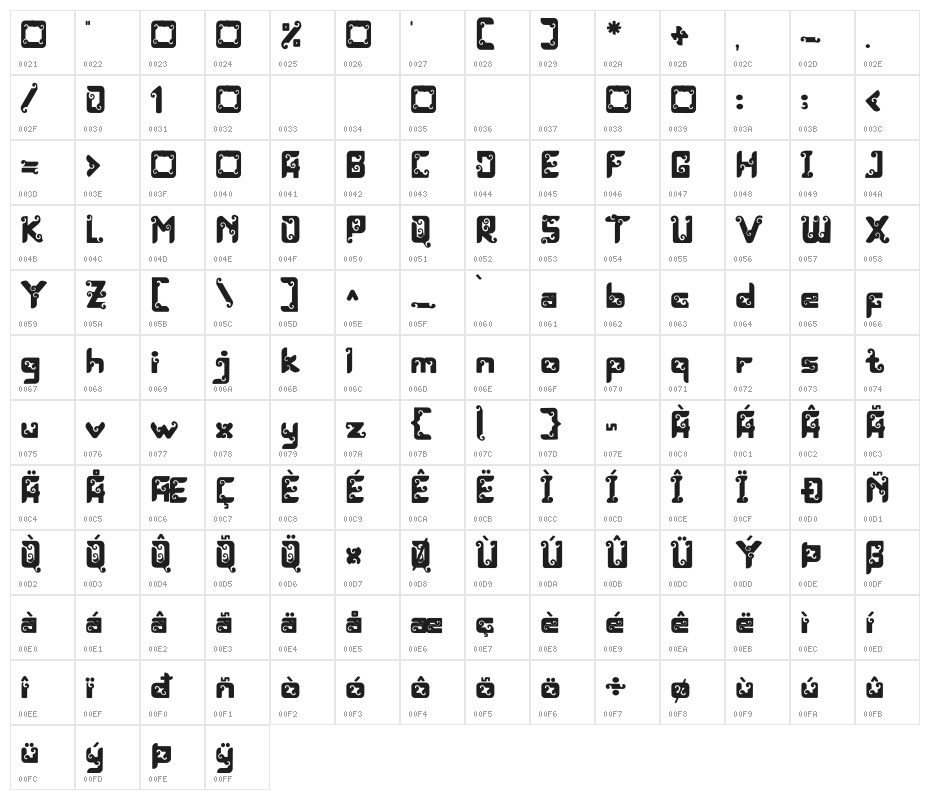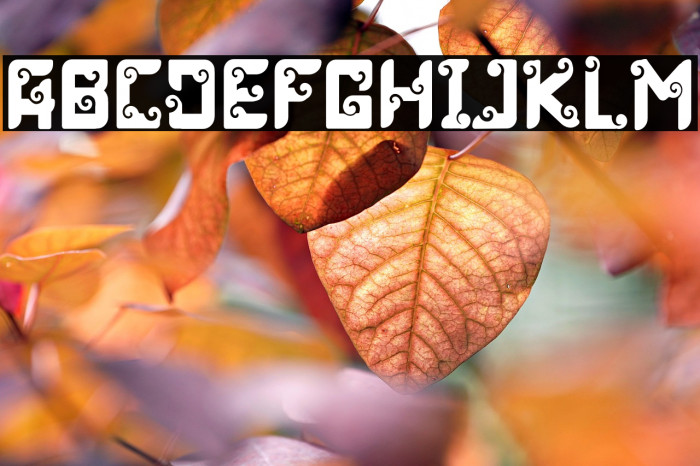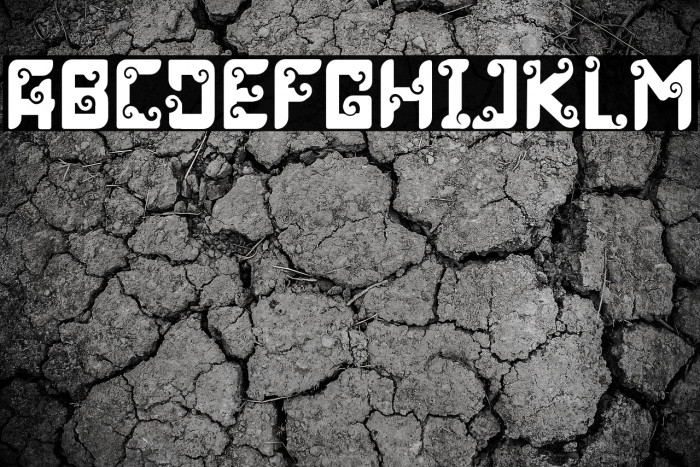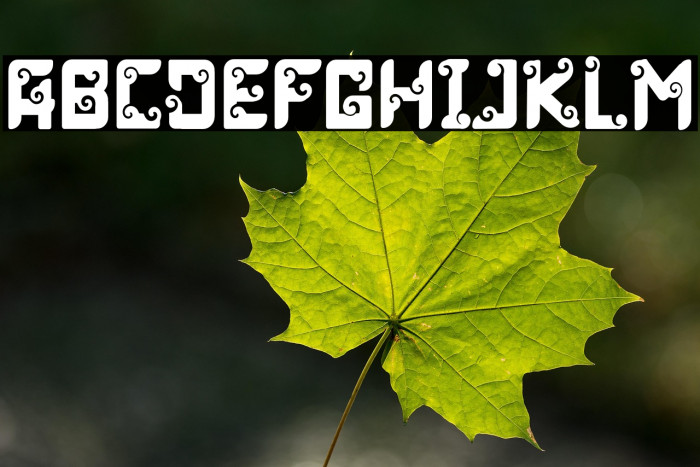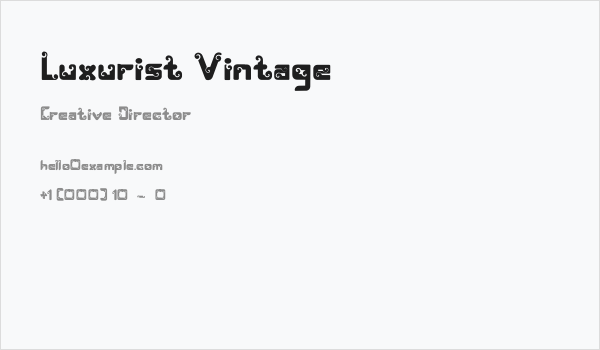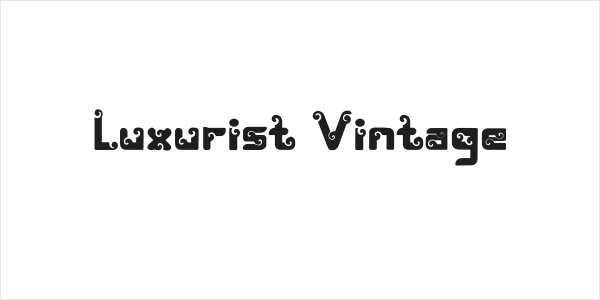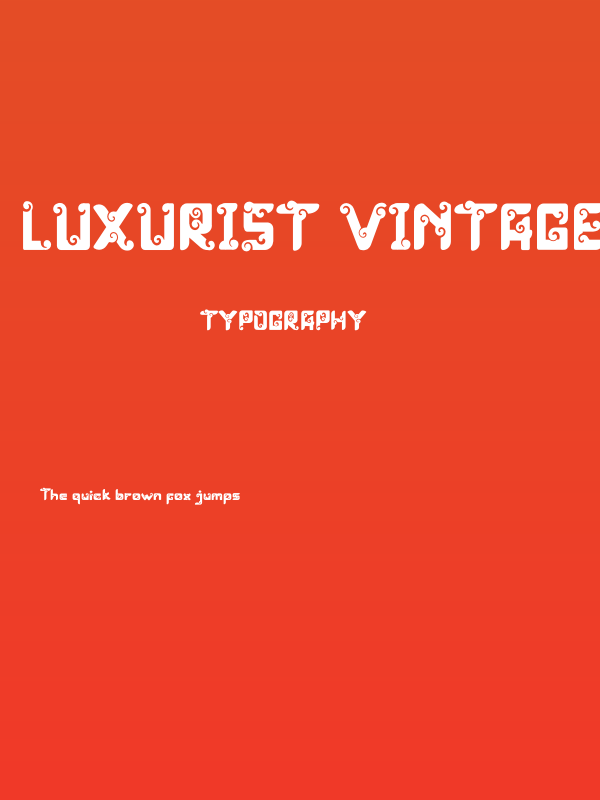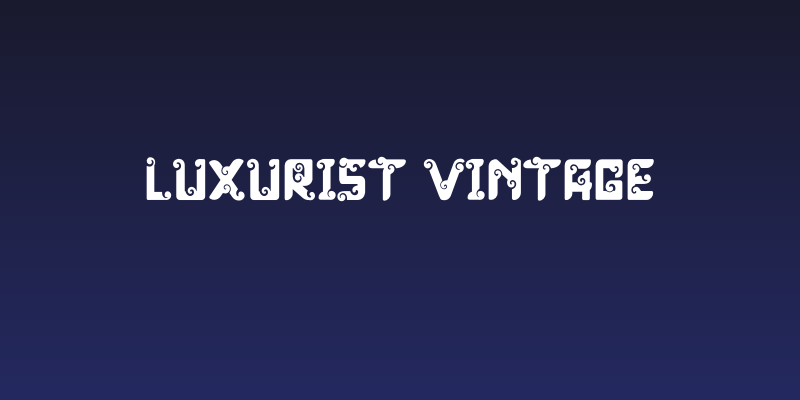
Luxurist Vintage Font
Luxurist Vintage Description
This font features a unique blend of vintage and decorative elements, characterized by its bold, blocky letters with intricate swirls and curls integrated into the design. The uppercase and lowercase letters maintain a consistent style, with each character exhibiting a playful yet sophisticated flair. The numbers and special characters are equally ornate, making them stand out with their distinctive embellishments. This font's artistic design is reminiscent of vintage signage or posters, offering a nostalgic yet fresh appeal. Its bold presence and decorative nature make it ideal for projects that require a touch of elegance and creativity.
| Overall Style | Vintage, Decorative |
| Proposed Projects | Ideal for vintage-themed posters, creative branding, unique invitations, and decorative signage. |